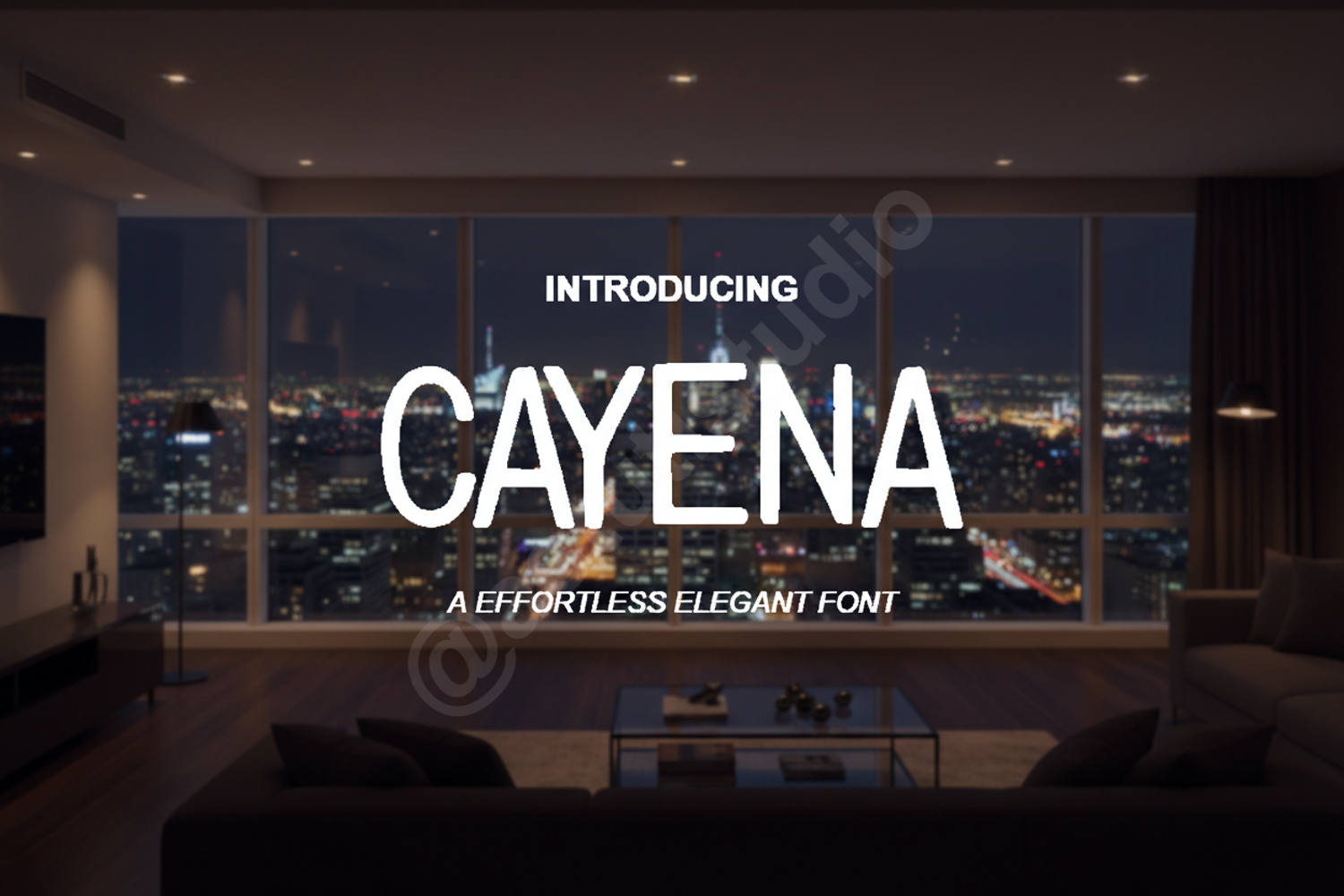
Cayena | Elegant & Timeless Modern Serif
Cayena
Cayena is a premium serif typeface designed to bring a touch of sophisticated luxury to your creative projects. With its high-contrast strokes and refined proportions, Cayena strikes the perfect balance between classic calligraphic roots and contemporary minimalist design. This font is engineered for clarity and elegance, ensuring your work stands out with a professional, high-end aesthetic.
- Full set of uppercase and lowercase letters
- Numerals, punctuation, and essential symbols
- Multilingual support for diverse design needs
- Branding and Identity: Create powerful logos and cohesive brand systems for luxury markets.
- Editorial Design: Elevate magazine layouts, book covers, and high-fashion spreads.
- Wedding Stationery: Design breathtaking invitations, save-the-dates, and event programs.
- Social Media: Craft eye-catching quotes and sophisticated headers for Instagram and Pinterest.
- Product Packaging: Perfect for high-end cosmetics, jewelry, and lifestyle brand packaging.